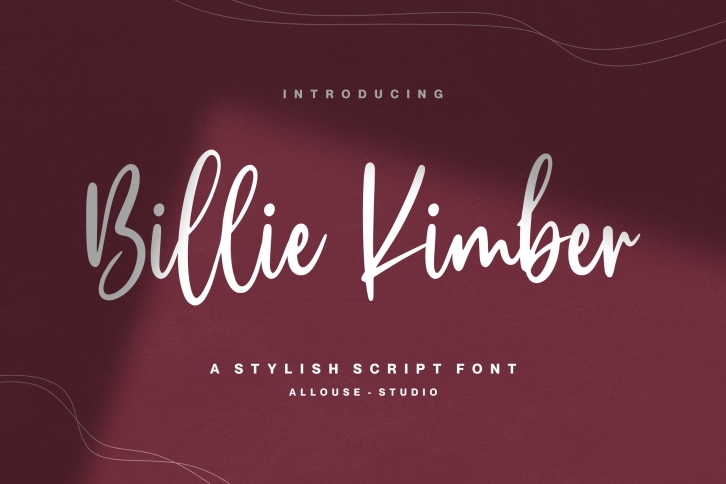
Billie Kimber is a gorgeous font that was realeased on December 25, 2021. The font can be used in many style contexts and design environments. Perfect for invitations, magazines, websites, logos, and more! It was designed by Allouse Studio and the file size is 14.50 MB. Thanks for checking out this font!